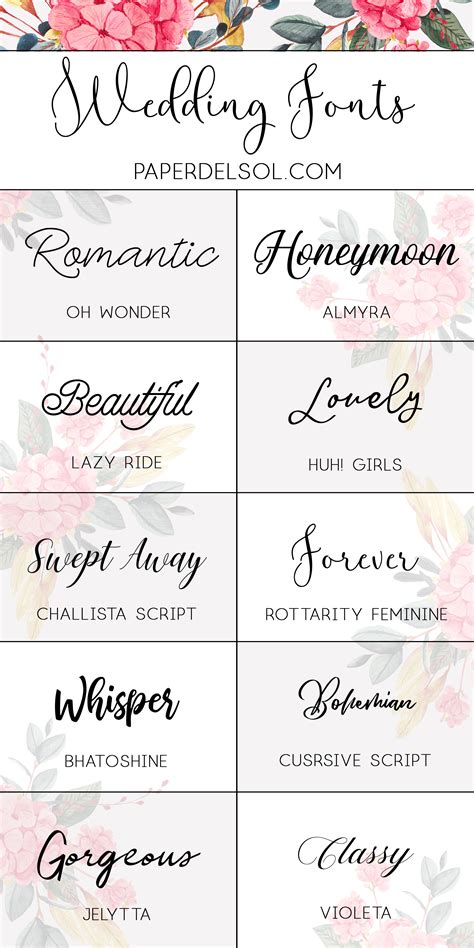
Incredible Best Free Wedding Handwriting Fonts Simple Ideas
Top Wedding Fonts. Web download beautiful, free wedding fonts that will make your special day even more unforgettable. Stylish calligraphy by misti's fonts.
Web download beautiful, free wedding fonts that will make your special day even more unforgettable. Stylish calligraphy by misti's fonts.
Stylish calligraphy by misti's fonts. Web download beautiful, free wedding fonts that will make your special day even more unforgettable.